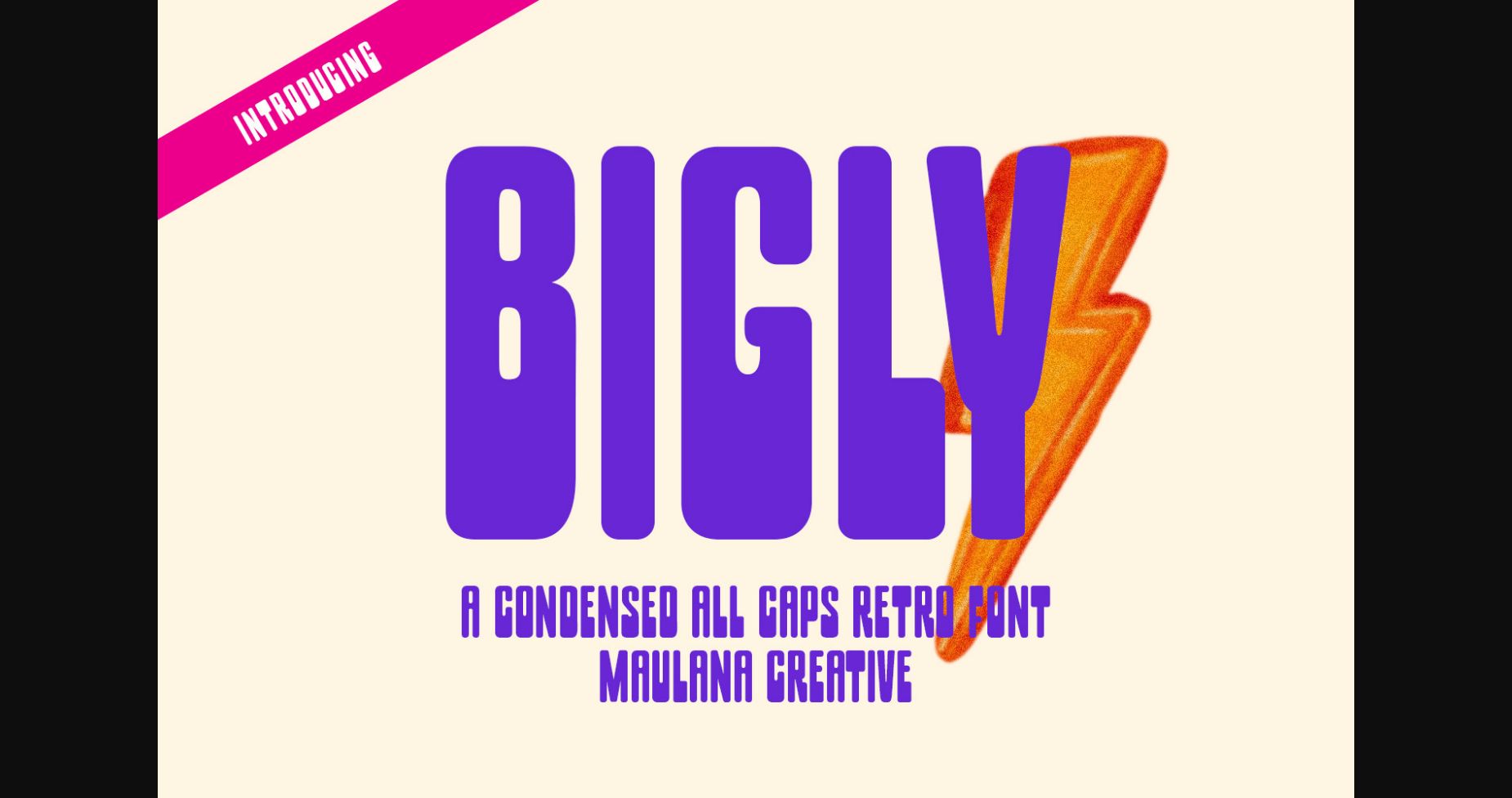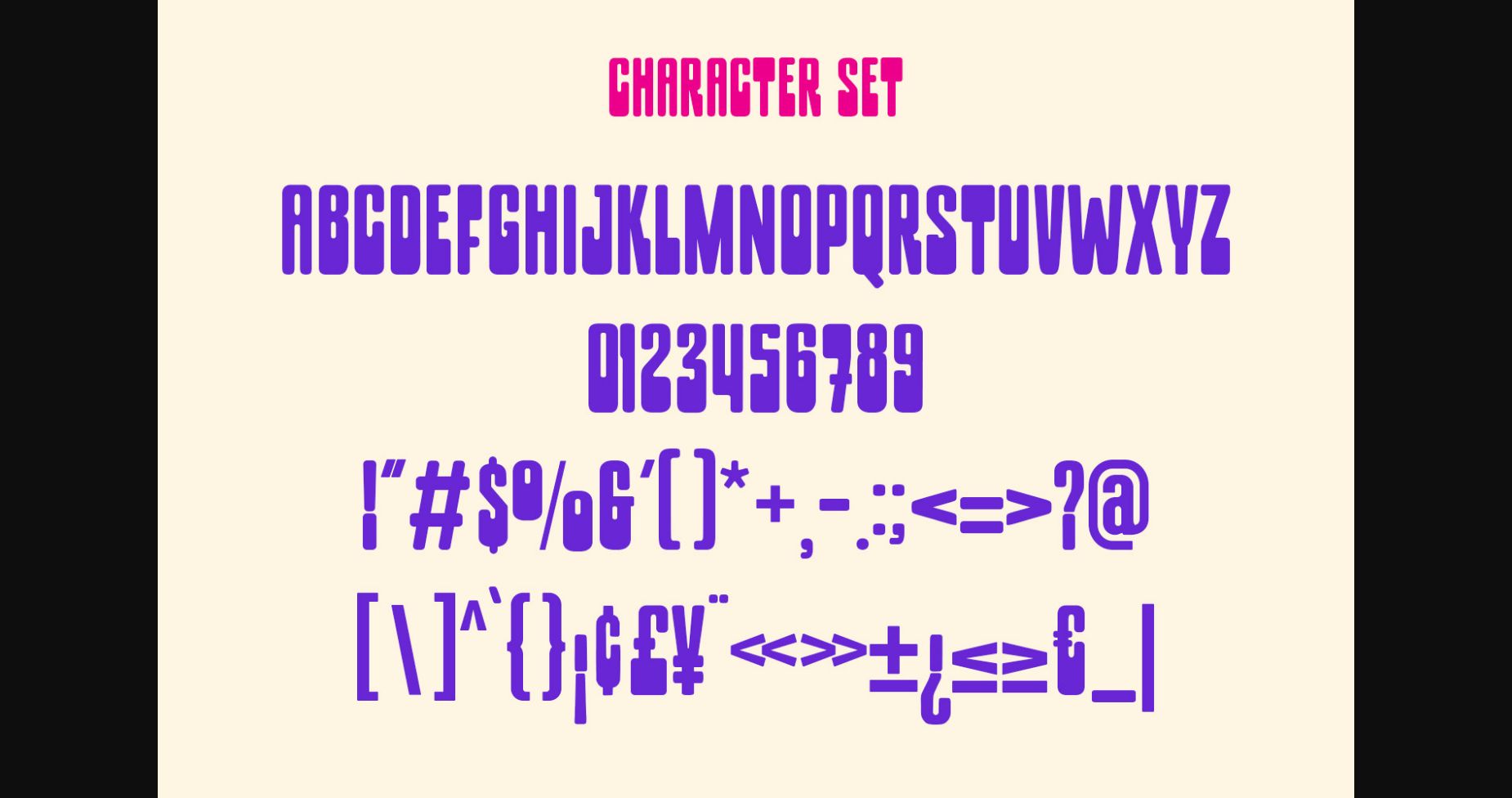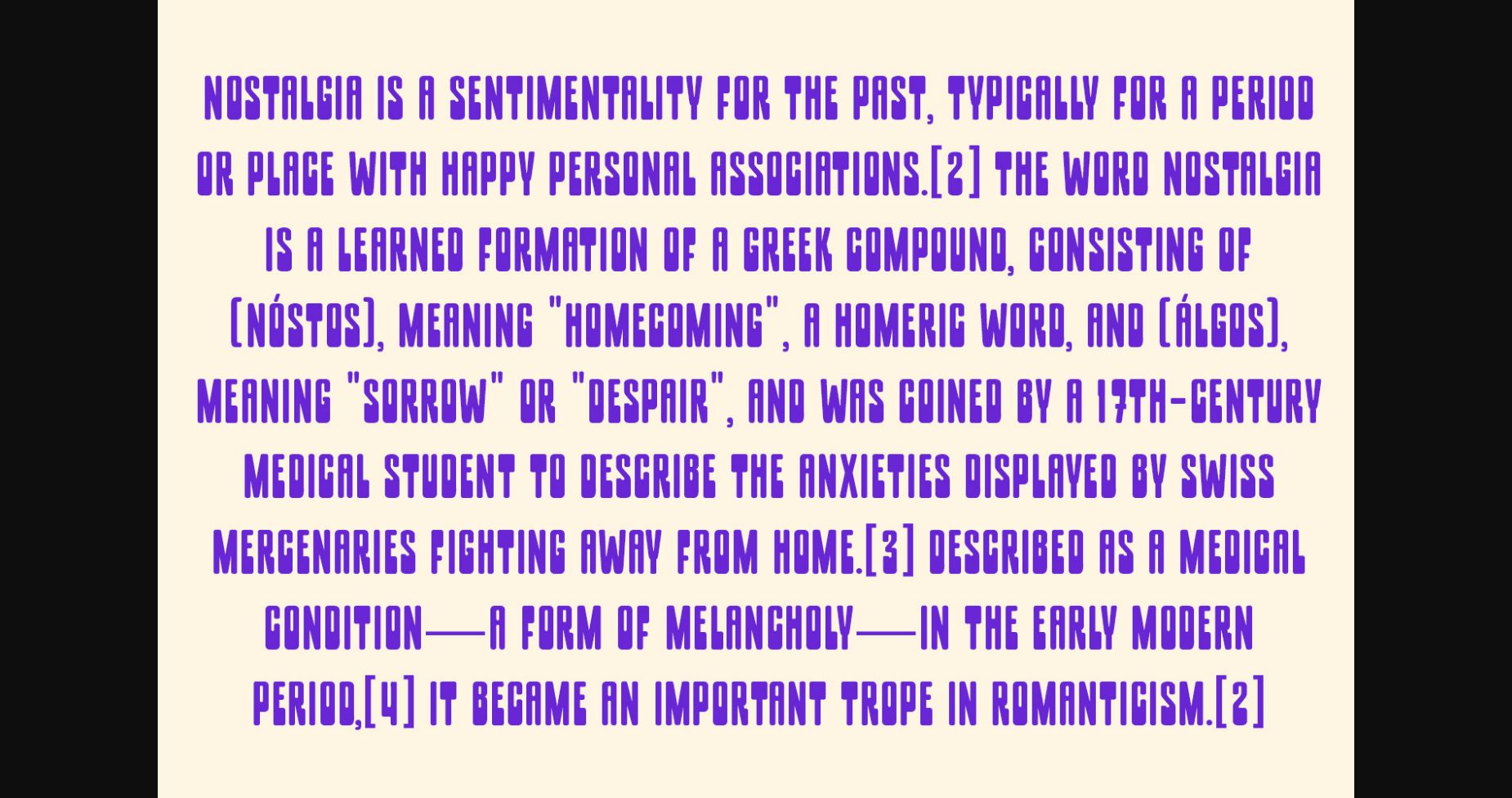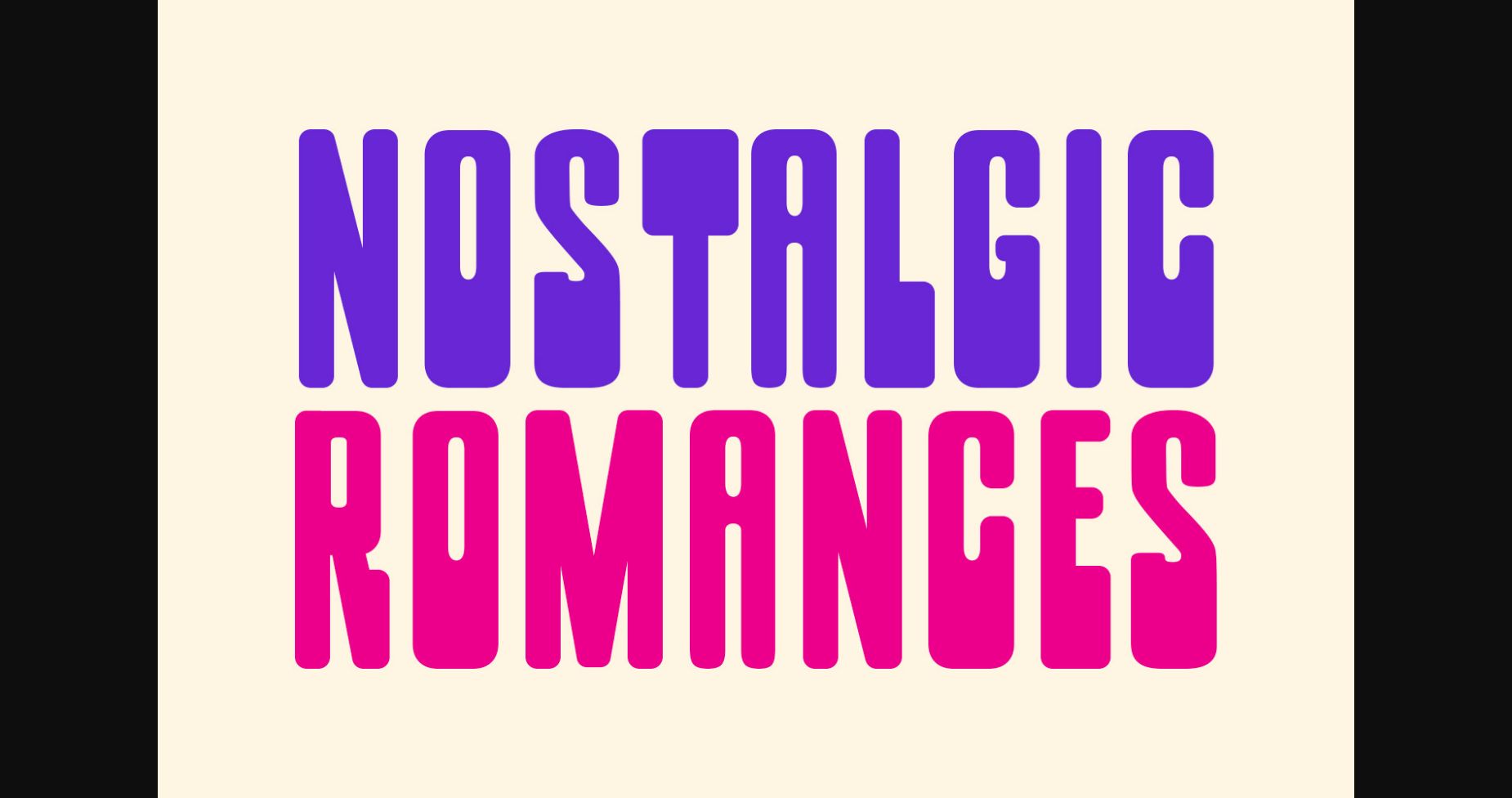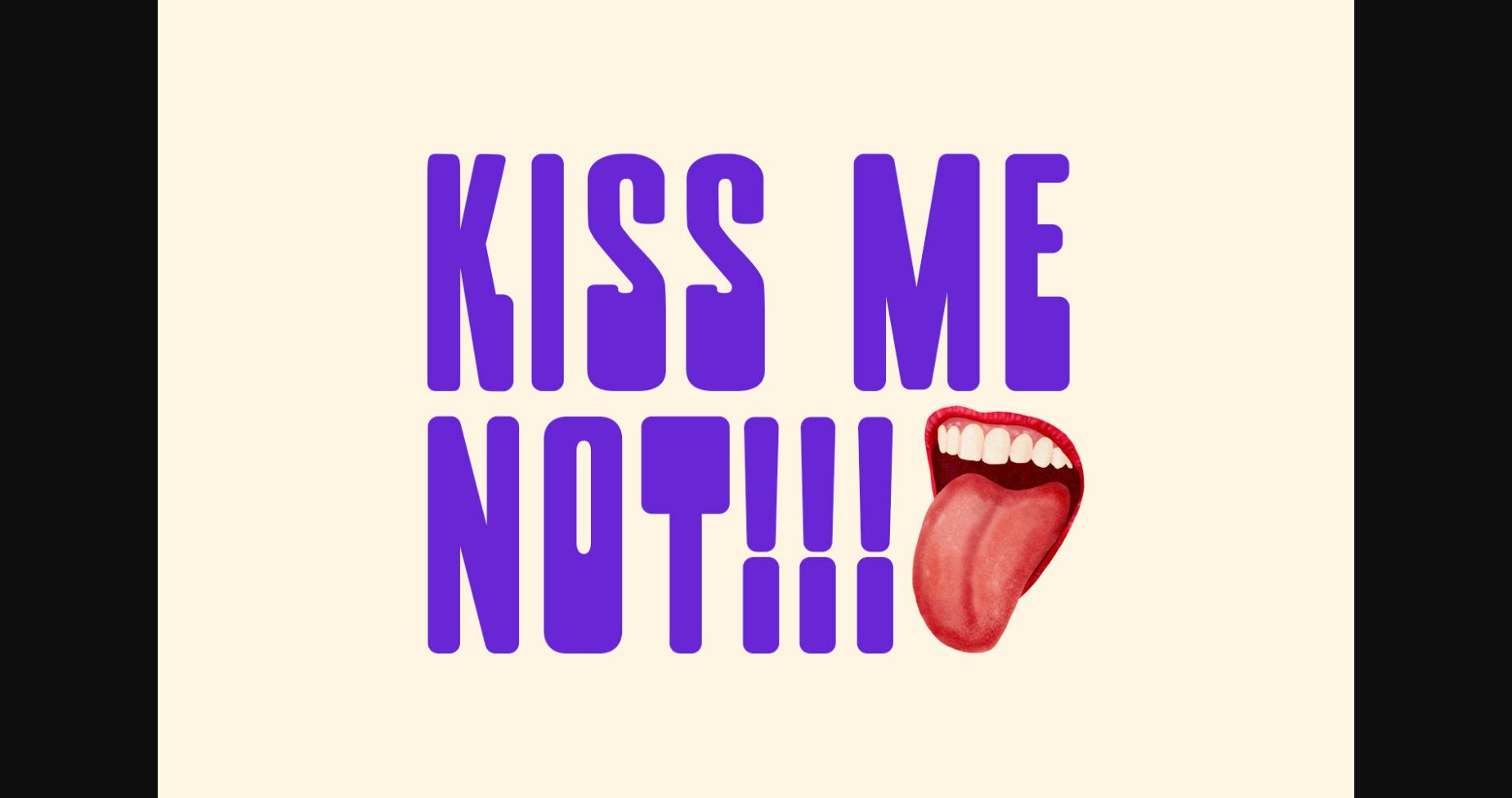
About Bigly Font
Bigly is a condensed retro sans serif font. Whatever the topic, this font will be a wonderful asset to your font library, as it has the potential to enhance any creation.